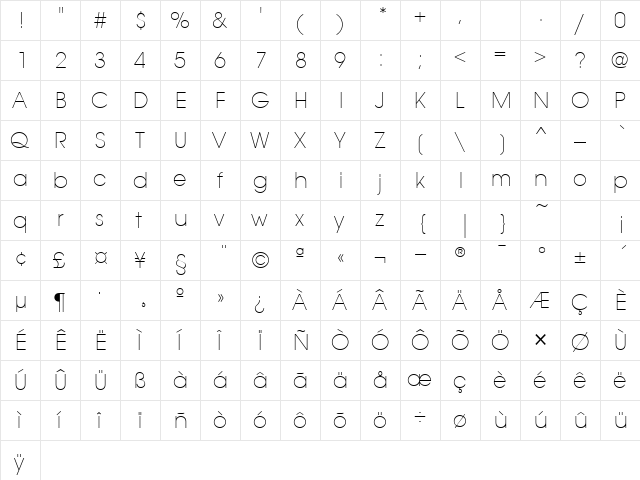
AvantGardeExtLitITCTT Regular Font Preview
AvantGardeExtLitITCTT Regular
AvantGardeExtLitITCTT Regular Font Details
| Foundry | International Typeface Corporation |
| Designer | Herb Lubalin/Tom Carnase |
Design Context for AvantGardeExtLitITCTT Typeface
AvantGardeExtLitITCTT is a composed and adaptable typeface that performs quietly and consistently across a wide range of design contexts.